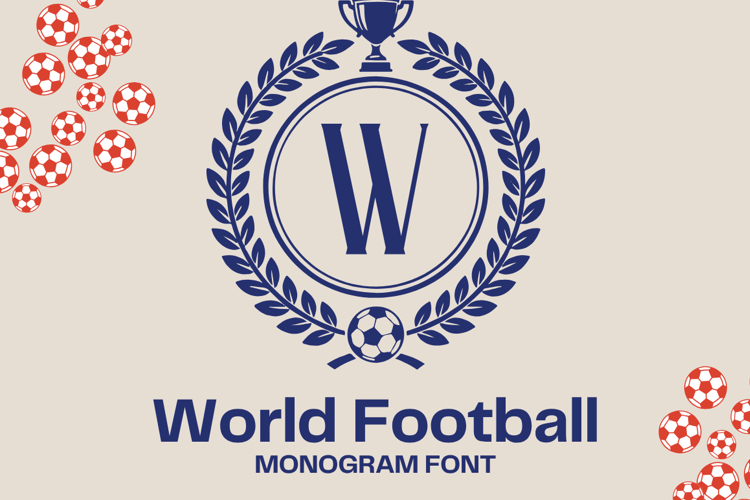
Introduce team pride in seconds with World Football
a sport-themed monogram font that transforms any letter into a laurel trophy emblem. Each glyph places your initial inside a double-ring circle framed by laurels, a trophy top, and a football base for a clean, professional crest.
Type "." or "," to print the monogram frame without a letter, perfect for layering icons or custom marks.